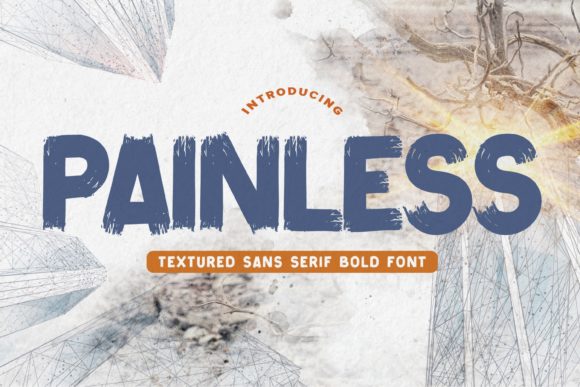
Welcome to the realm of visual delight, where typography meets art! In this collection, we introduce Painless, a captivating display font that exudes charm, authenticity, and an effortlessly relaxed vibe.
Painless is not just a font—it's an invitation to let your creativity flow. Its textured design and playful characters add a touch of whimsy and uniqueness to any project, creating designs that resonate with your audience on a deeper level.
With Painless, you'll embark on a journey of self-expression. Whether you're designing logos, posters, invitations, or social media posts, this font will help you craft visuals that speak volumes.
Step into the world of Painless and unleash your creative potential. Let your designs come alive with character and authenticity. It's the perfect font for those who dare to be different and crave a connection with their audience.
And hey, guess what? Painless is the ultimate weapon in your marketing arsenal. Its versatility and charm will make your brand shine and leave a lasting impression on your customers.
So, why settle for ordinary when you can have extraordinary? Embrace Painless today and let your designs bloom with individuality and style.